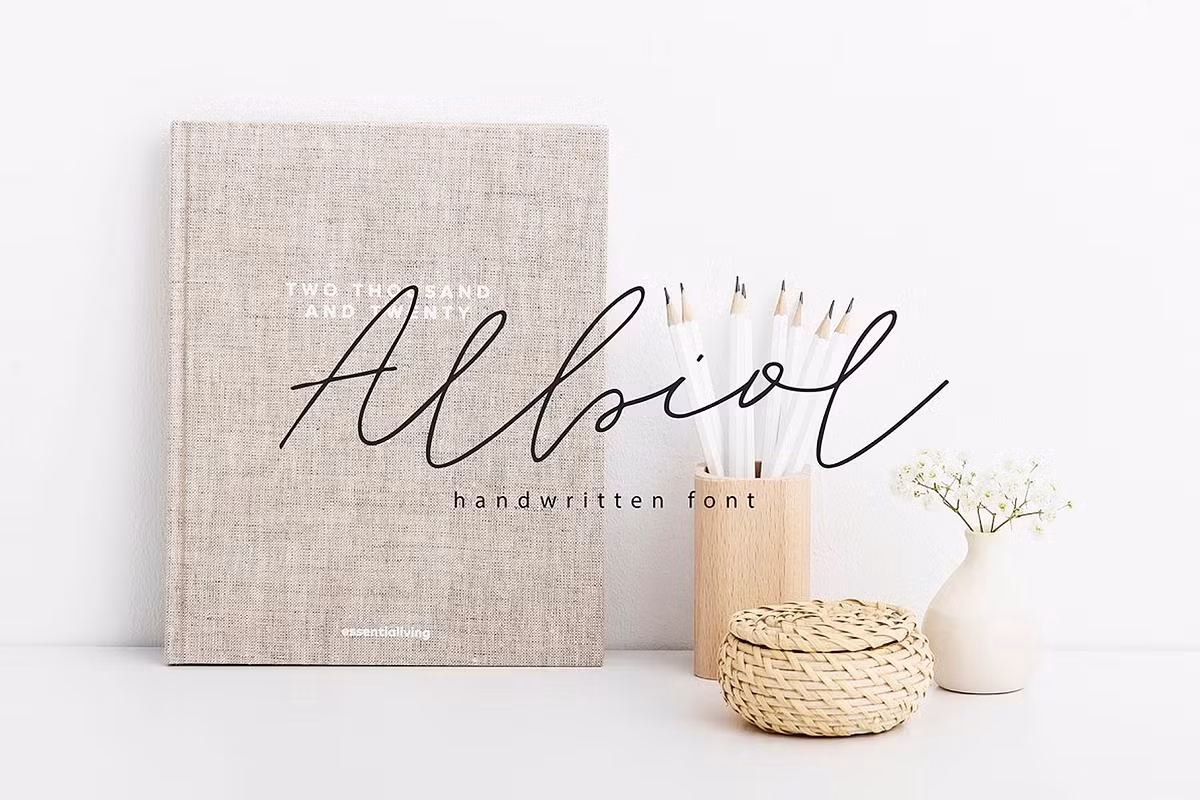
Albiol Handwritten Script Font Free Download is a beautiful and flowing script typeface that captures the charm of authentic handwriting. With its soft curves, smooth connections, and natural rhythm, Albiol is perfect for wedding invitations, personal branding, quotes, greeting cards, and feminine product packaging.
Its elegant yet approachable style adds a handcrafted touch to any design—bringing warmth, emotion, and sophistication. Whether you’re designing a signature logo or romantic social media content, Albiol ensures your typography feels personal and polished.
Designers love Albiol for its versatility, graceful look, and usability across both digital and print formats. Want to bring heartfelt elegance to your next project? Download Albiol Handwritten Script Font Free Download and let your design speak with beauty and authenticity.